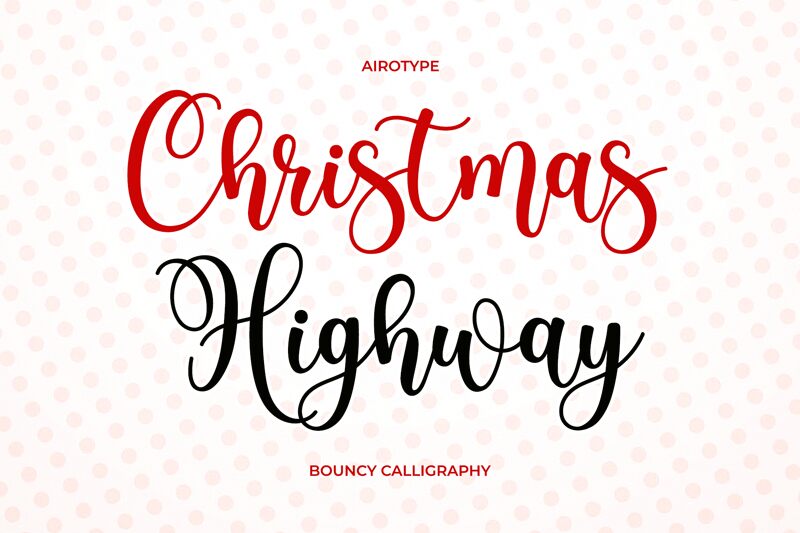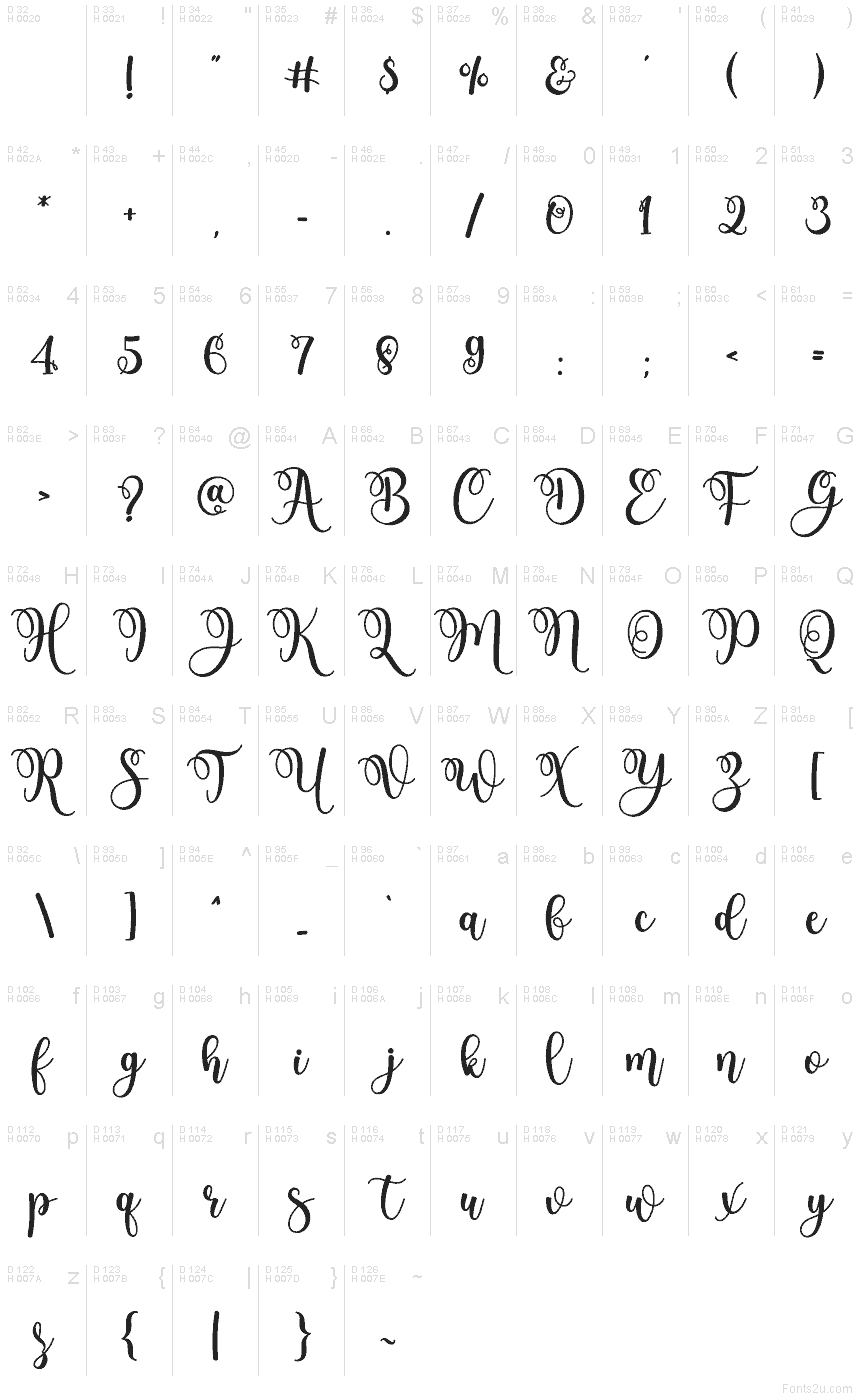
Christmas Highway
Christmas Highway font by Airotype Studio is a free festive calligraphy typeface with lush, looping strokes that feel like they were brushed straight onto a holiday card. The letters sway and curl with an easy hand-lettered rhythm, giving your layouts that cozy, made-by-hand warmth—like ribbon curls and icing swirls on a winter cookie tray. Generous curves and smooth connections keep it readable even when the script gets flourished and playful.
Using Christmas Highway, your seasonal projects instantly pick up a storybook charm that works beautifully for Christmas cards, gift tags, party invitations, mug and ornament designs, social media graphics, and winter event posters. This free font shines when set large, letting the swashes breathe; pair it with a simple sans serif for body text to keep your designs clear, modern, and not too sugary.